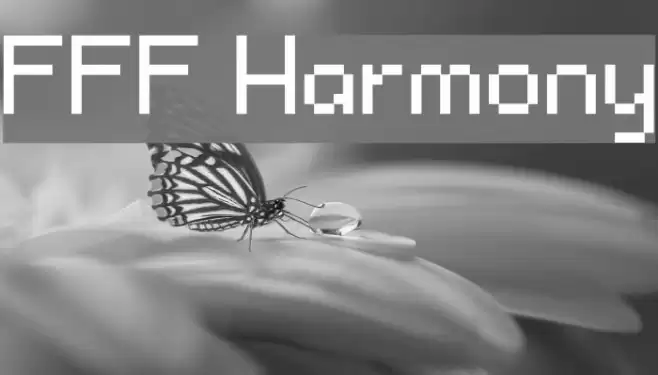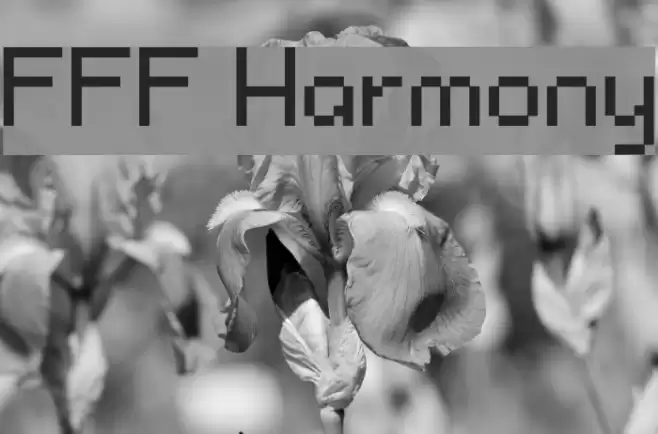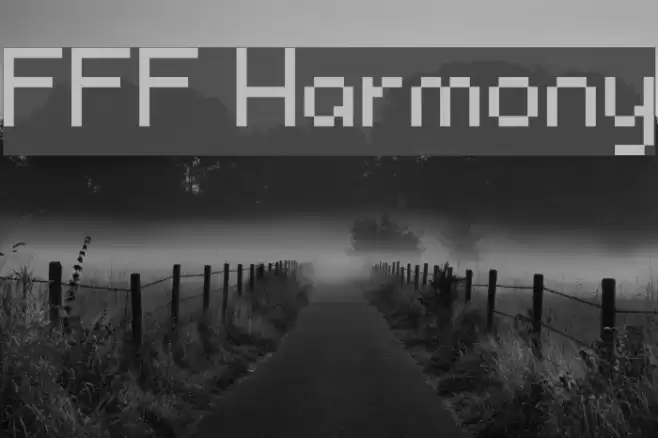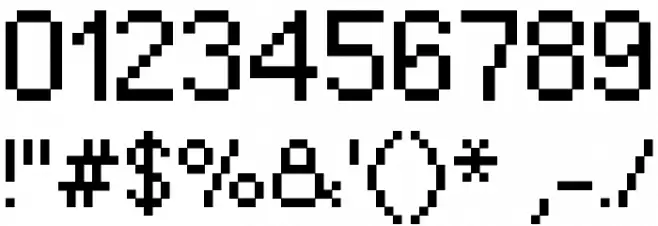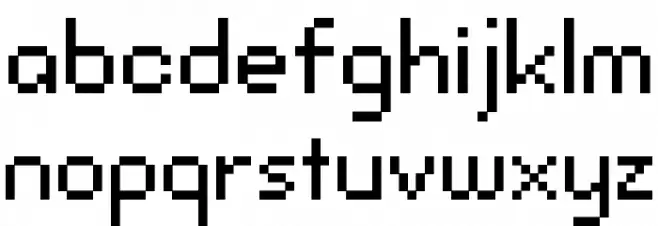
FFF Harmony Font
FFF Harmony Description
This font features a pixelated, blocky design reminiscent of early digital displays and retro video games. Each character is constructed with a uniform grid-like structure, giving it a distinctly digital and geometric appearance. The uppercase and lowercase letters maintain a consistent height, contributing to a cohesive and structured look. Numbers and special characters follow the same pixelated style, ensuring uniformity across all glyphs. The font's simplicity and clarity make it highly legible, even at smaller sizes, while its nostalgic aesthetic evokes a sense of vintage computing.
A pixelated, retro-style font with a blocky, digital appearance from Pixel fonts.
- Proposed Projects: Ideal for retro-themed designs, video game graphics, digital art projects, and any creative work that requires a nostalgic or tech-inspired aesthetic.
- Overall Style: Vintage
- Use Case: Logos, Headlines, Digital Art